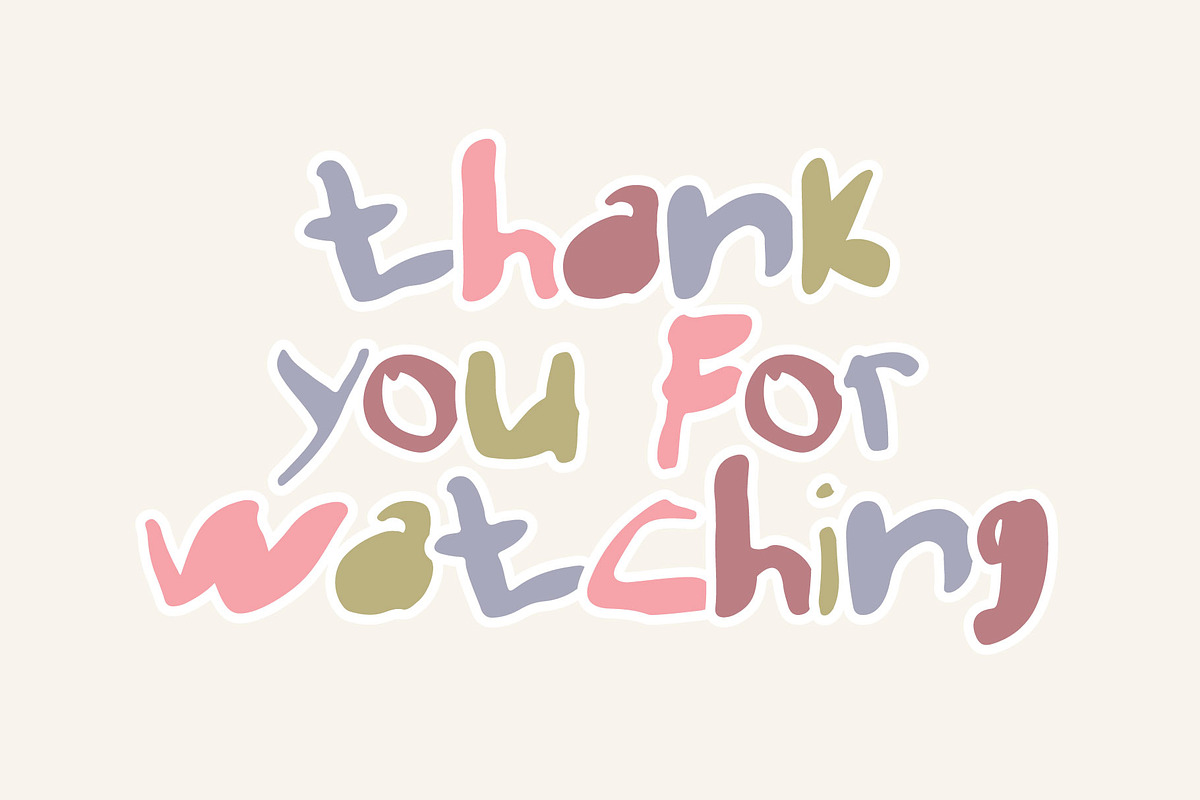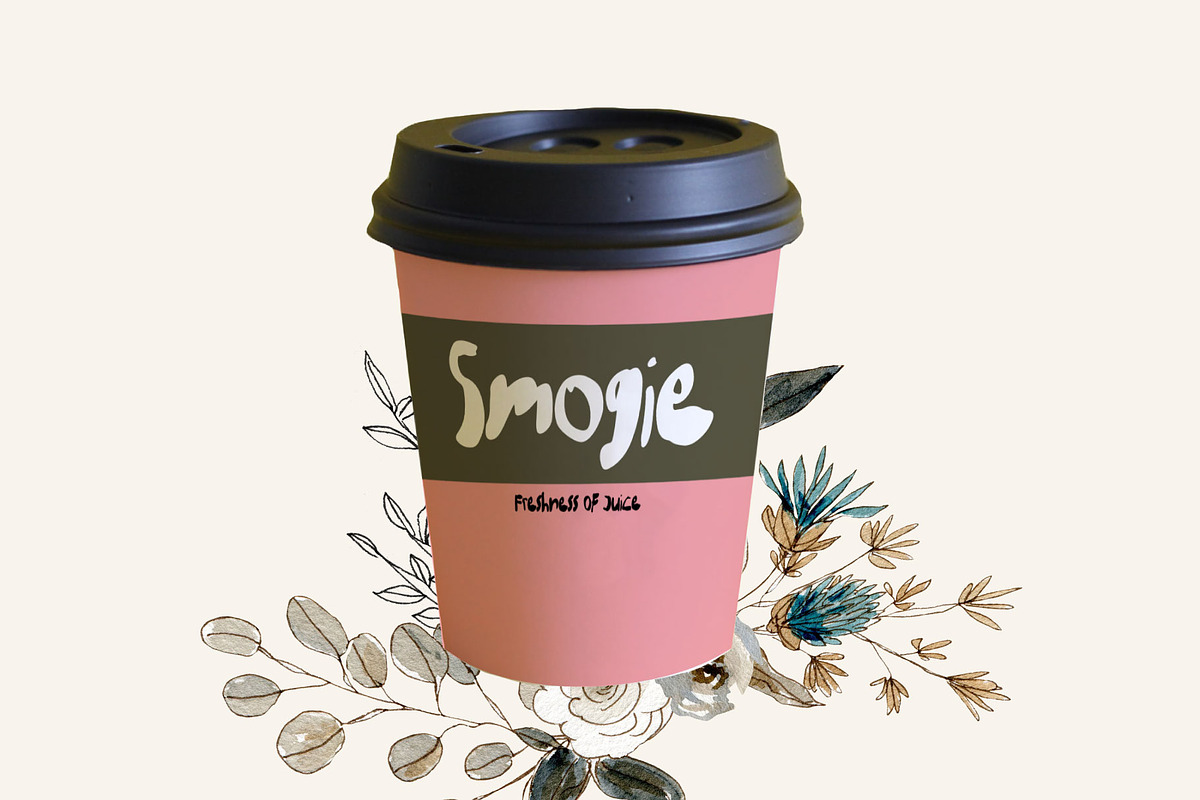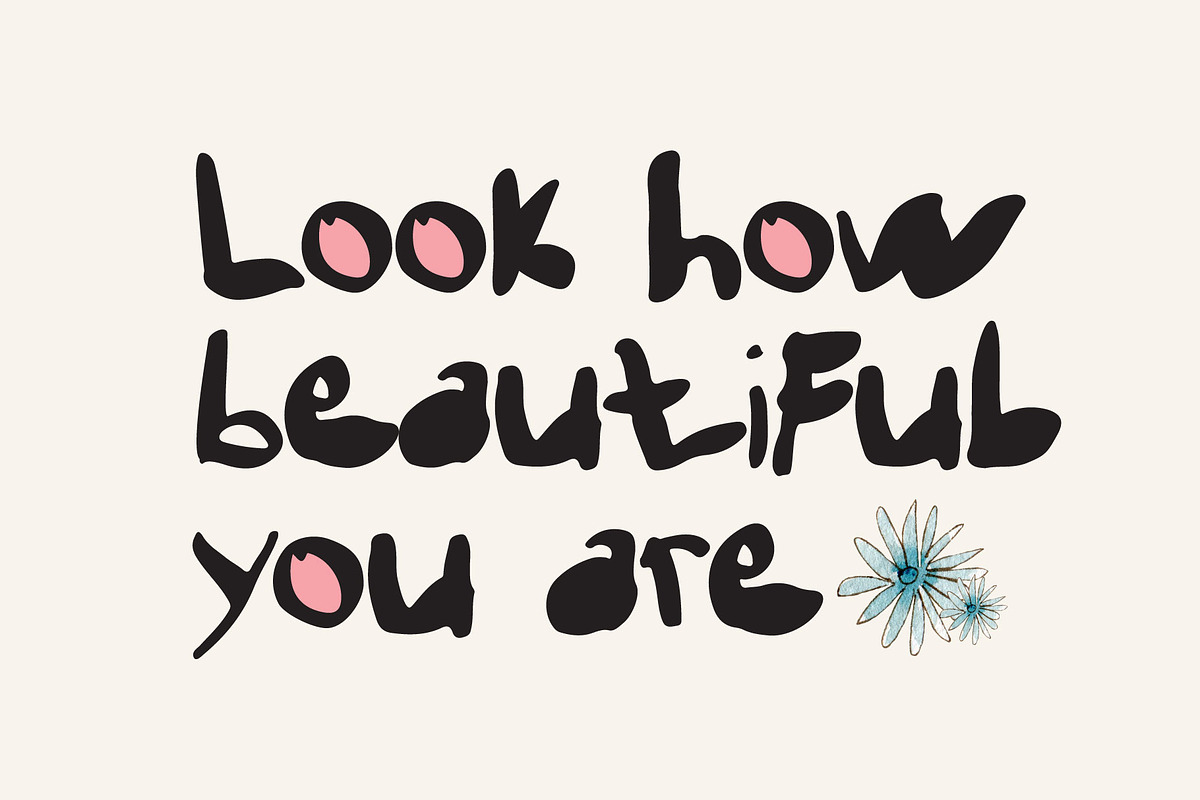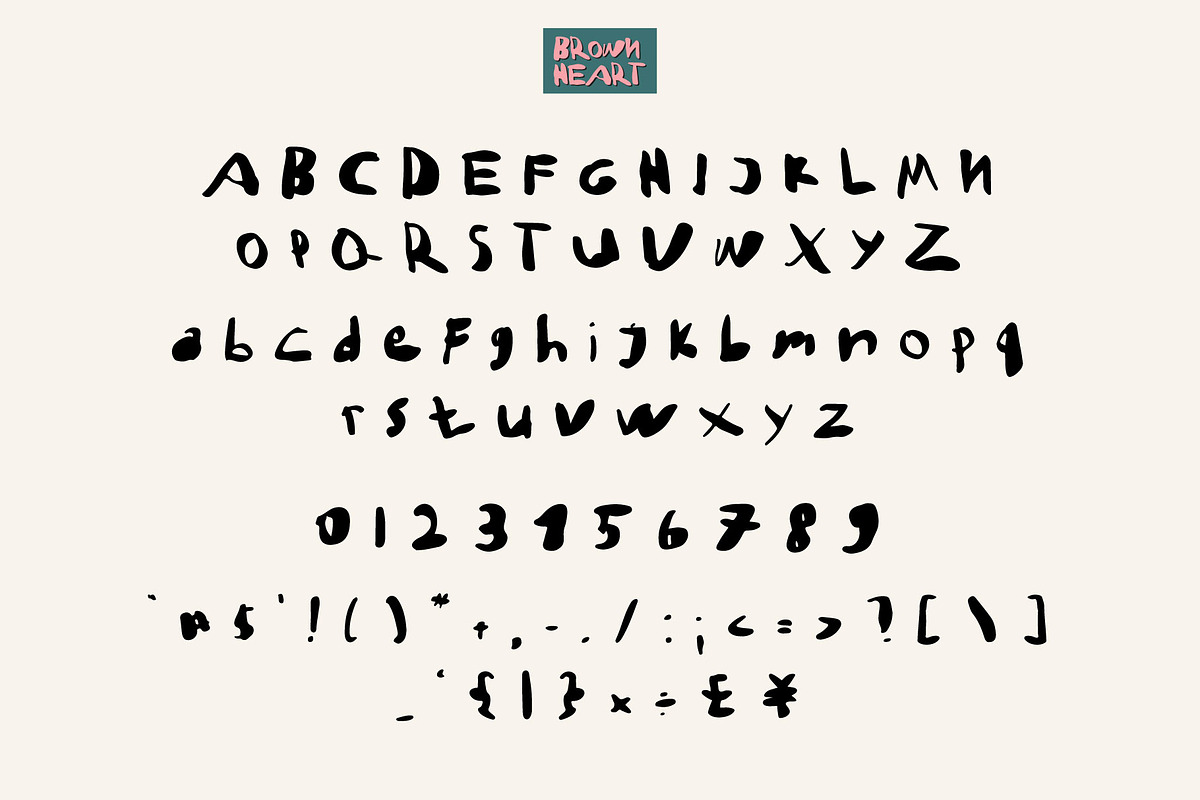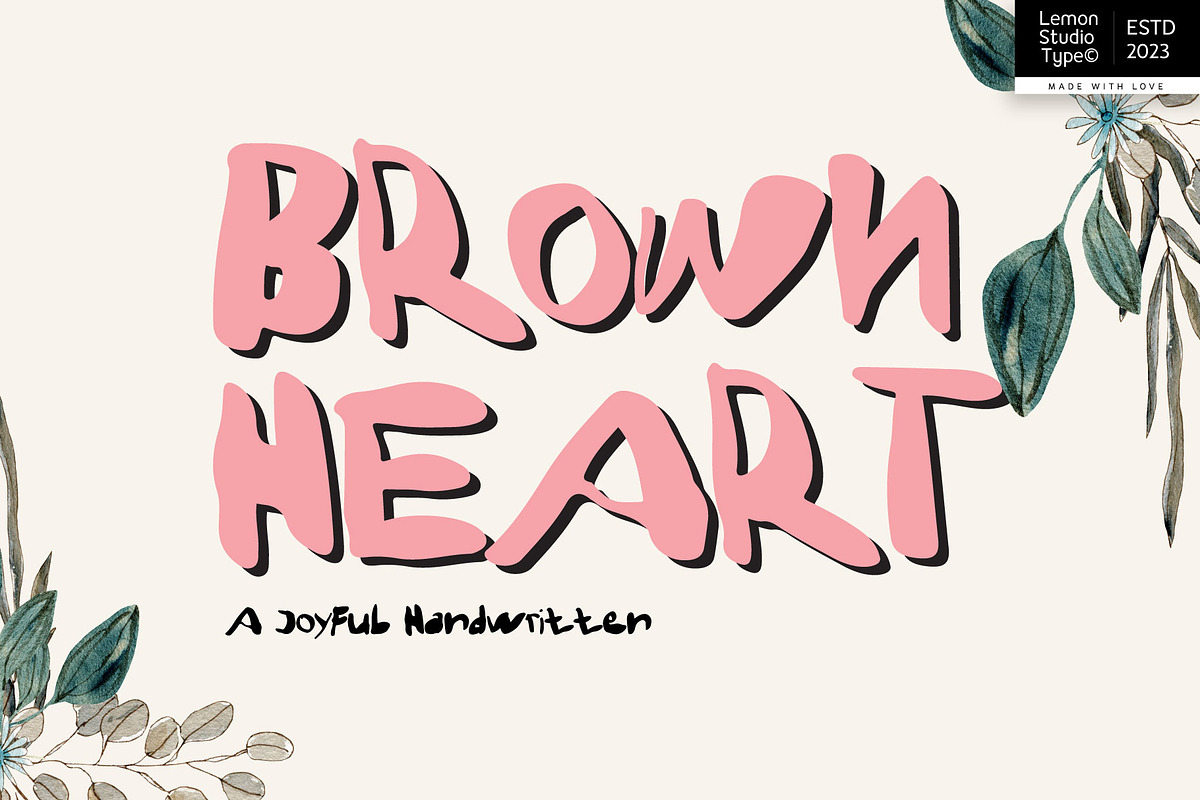
Brown Heart - Cute Handwritten
Brown Heart is a cute and free hand style handwritten font. This is a joyful sans-serif for your fun projects like birthday invitations, mockups, book covers, posters, and many other things you can do with this cute font.